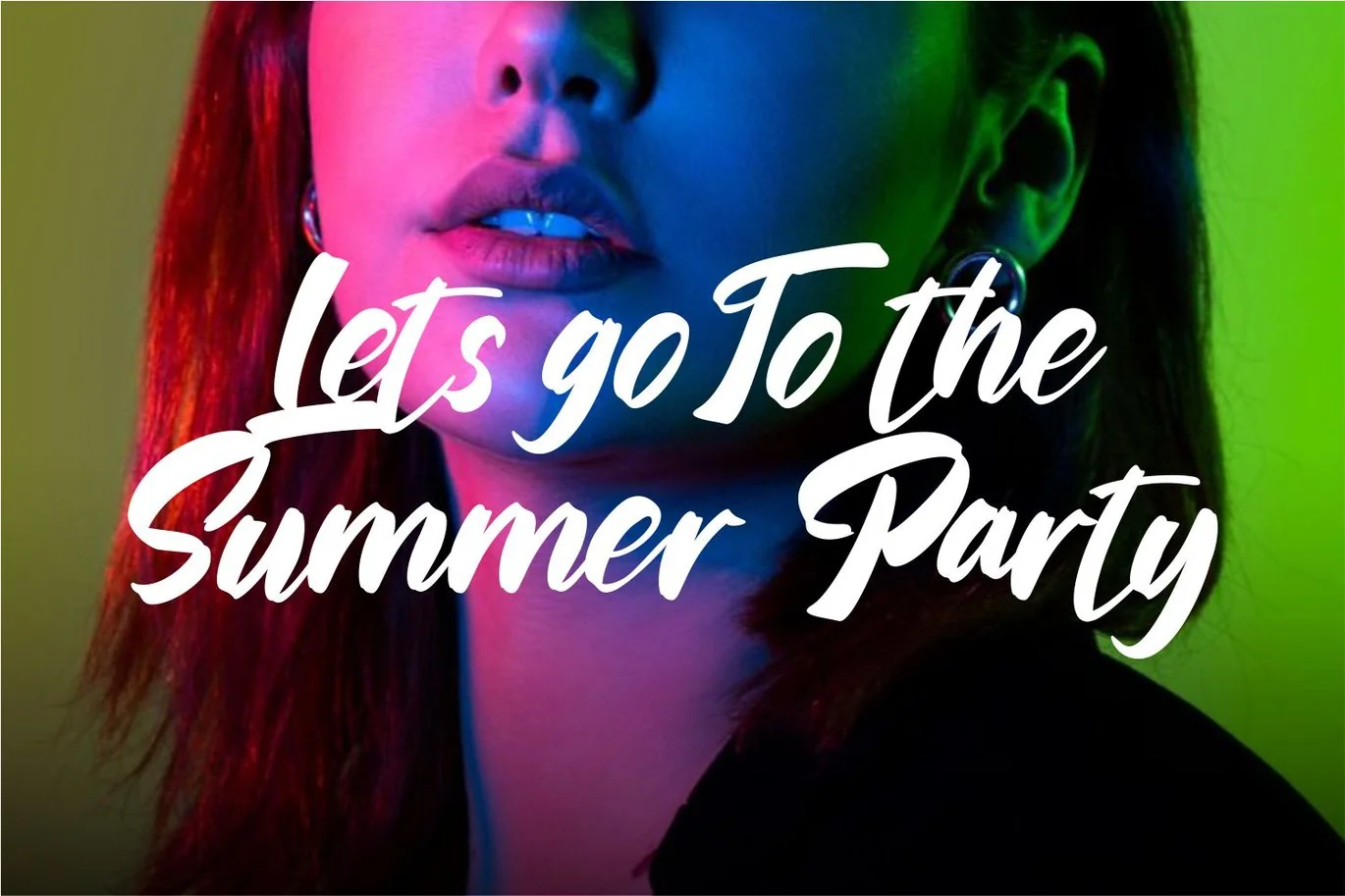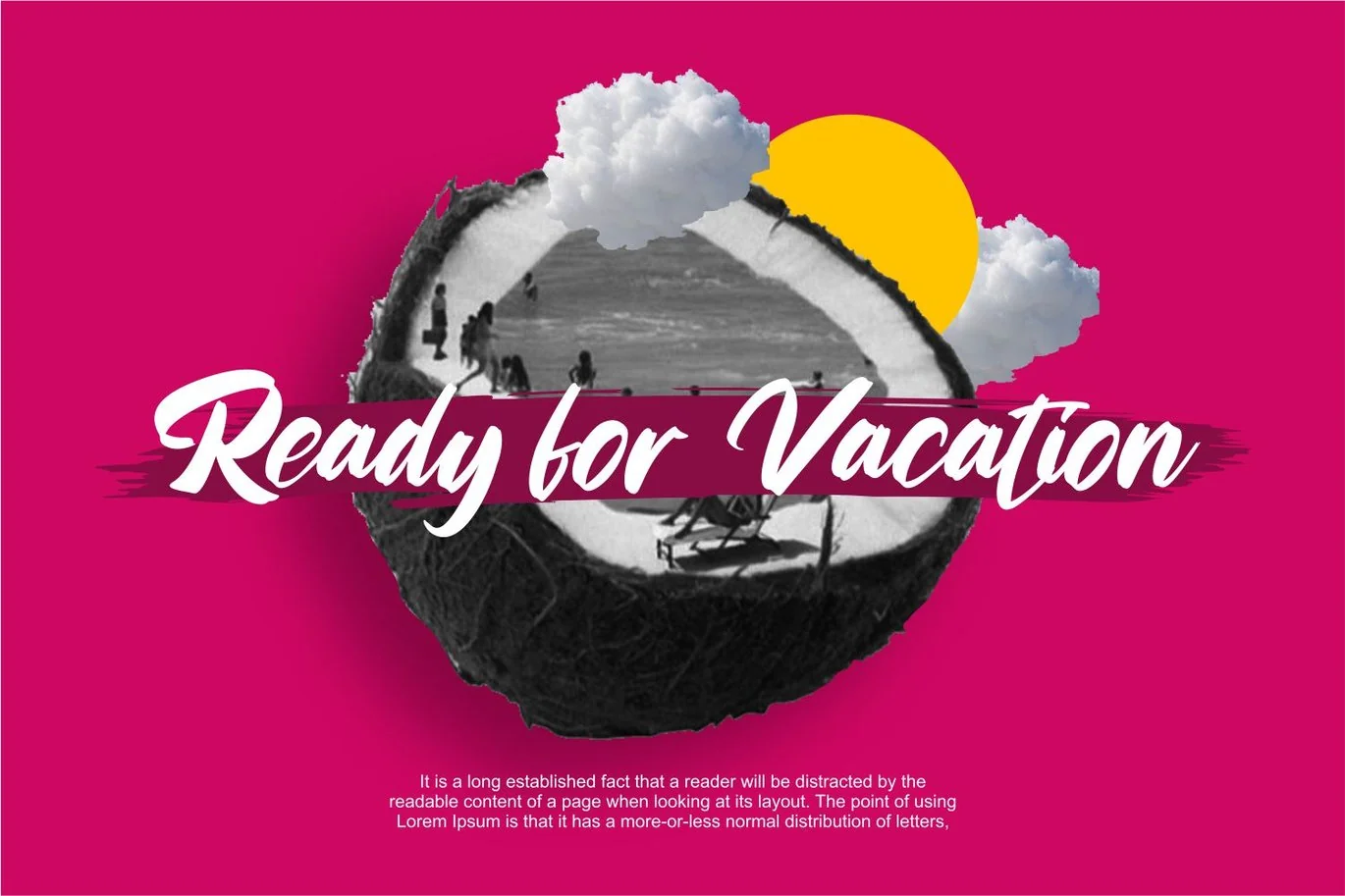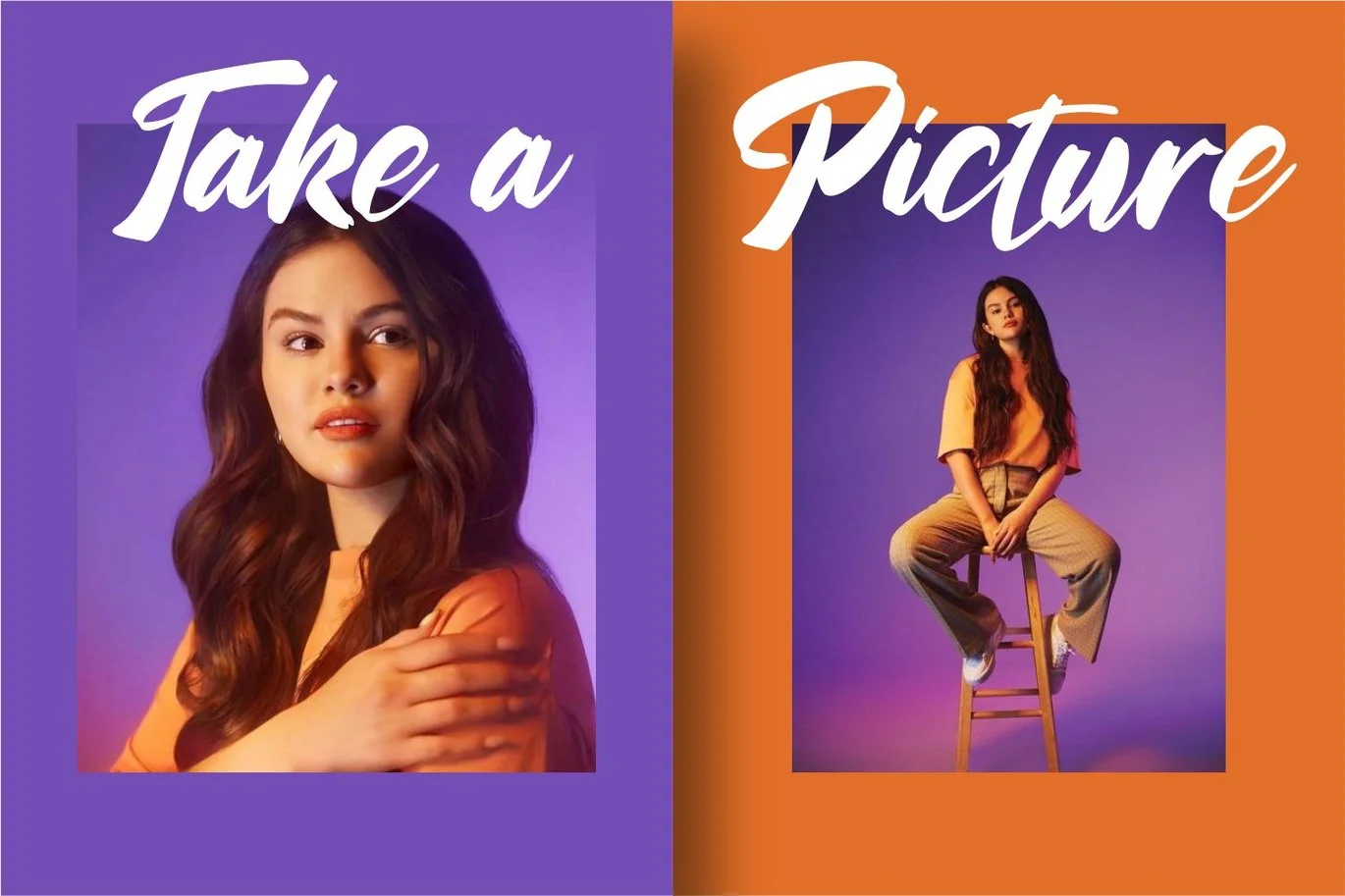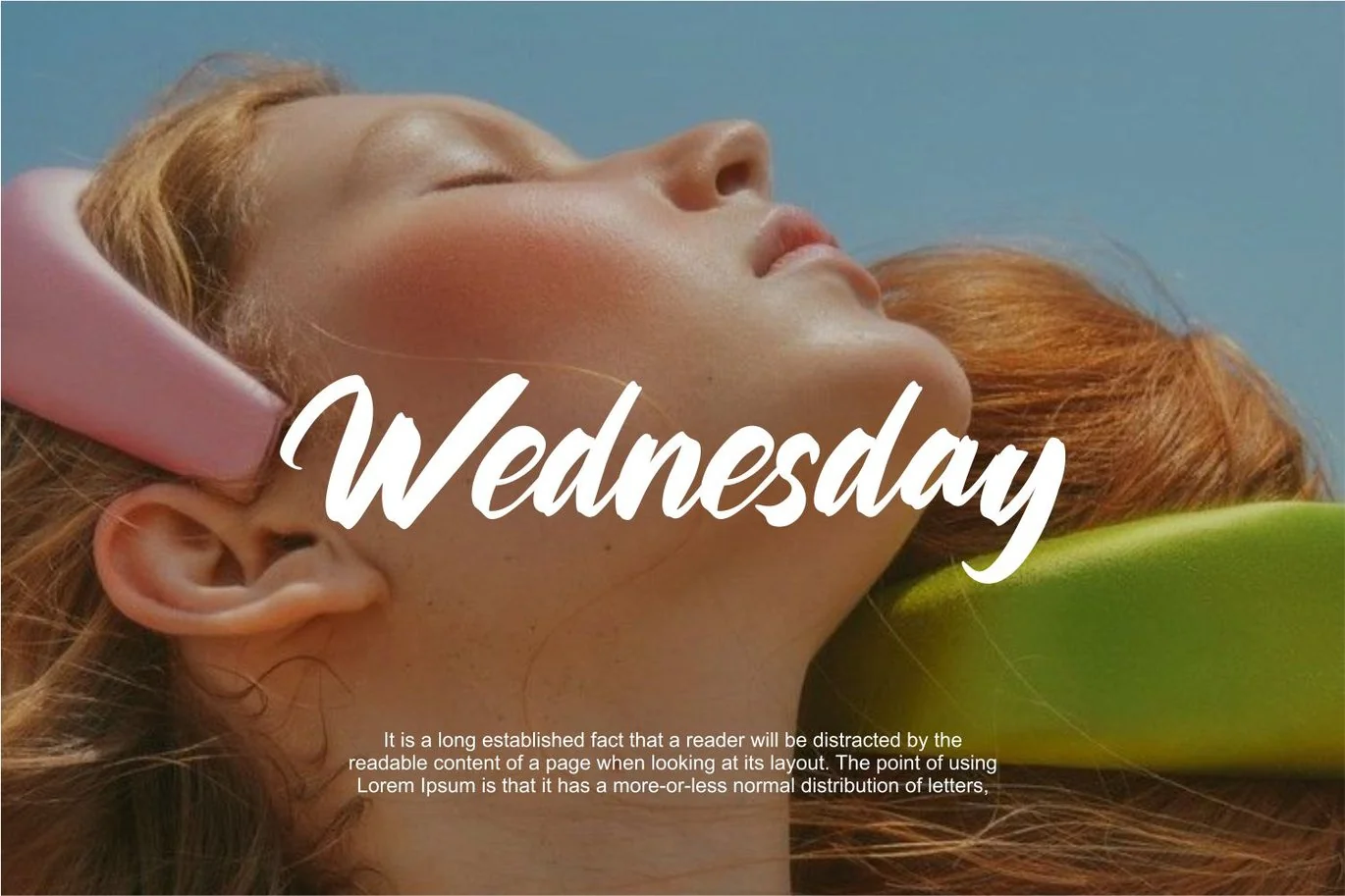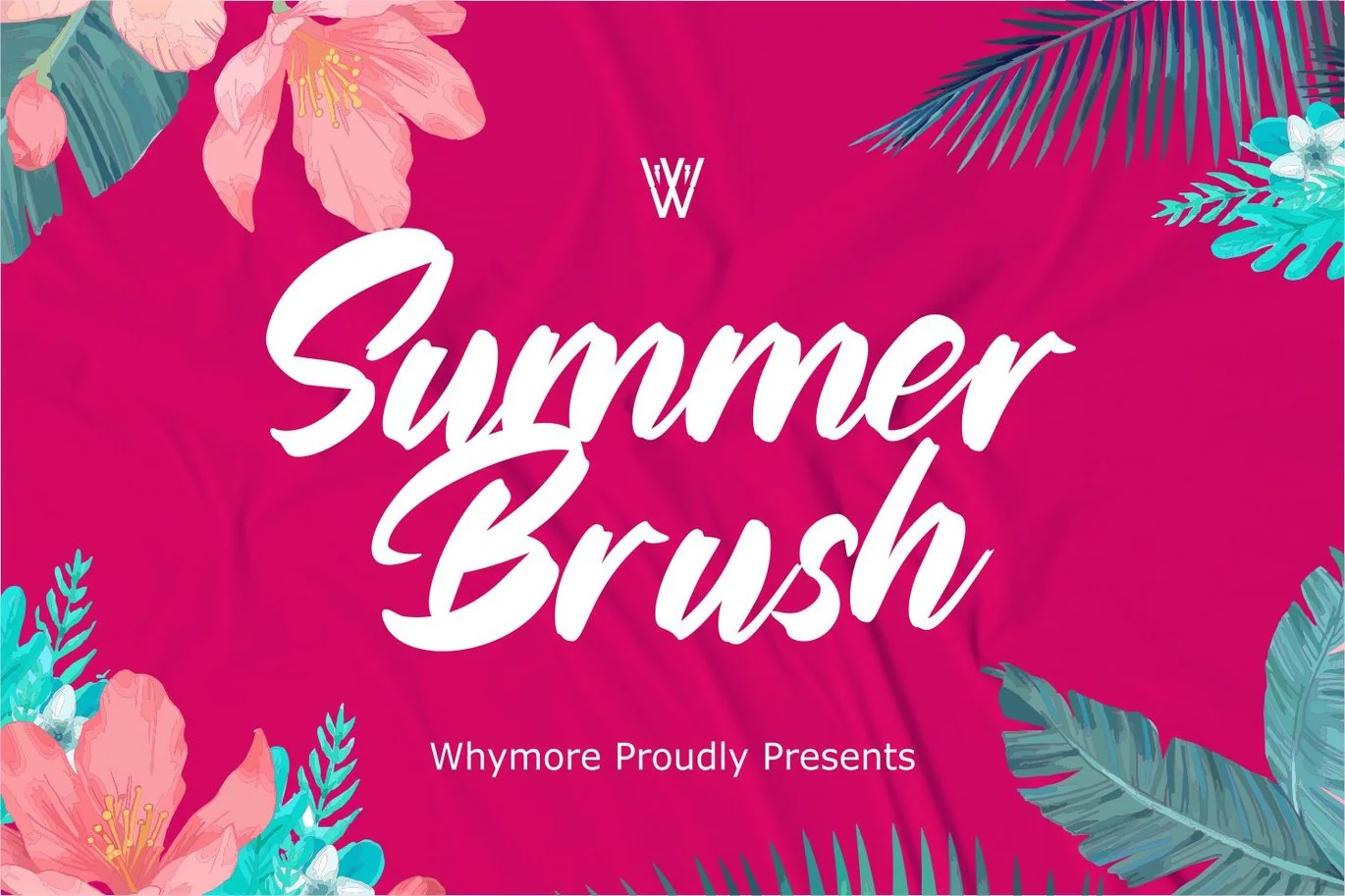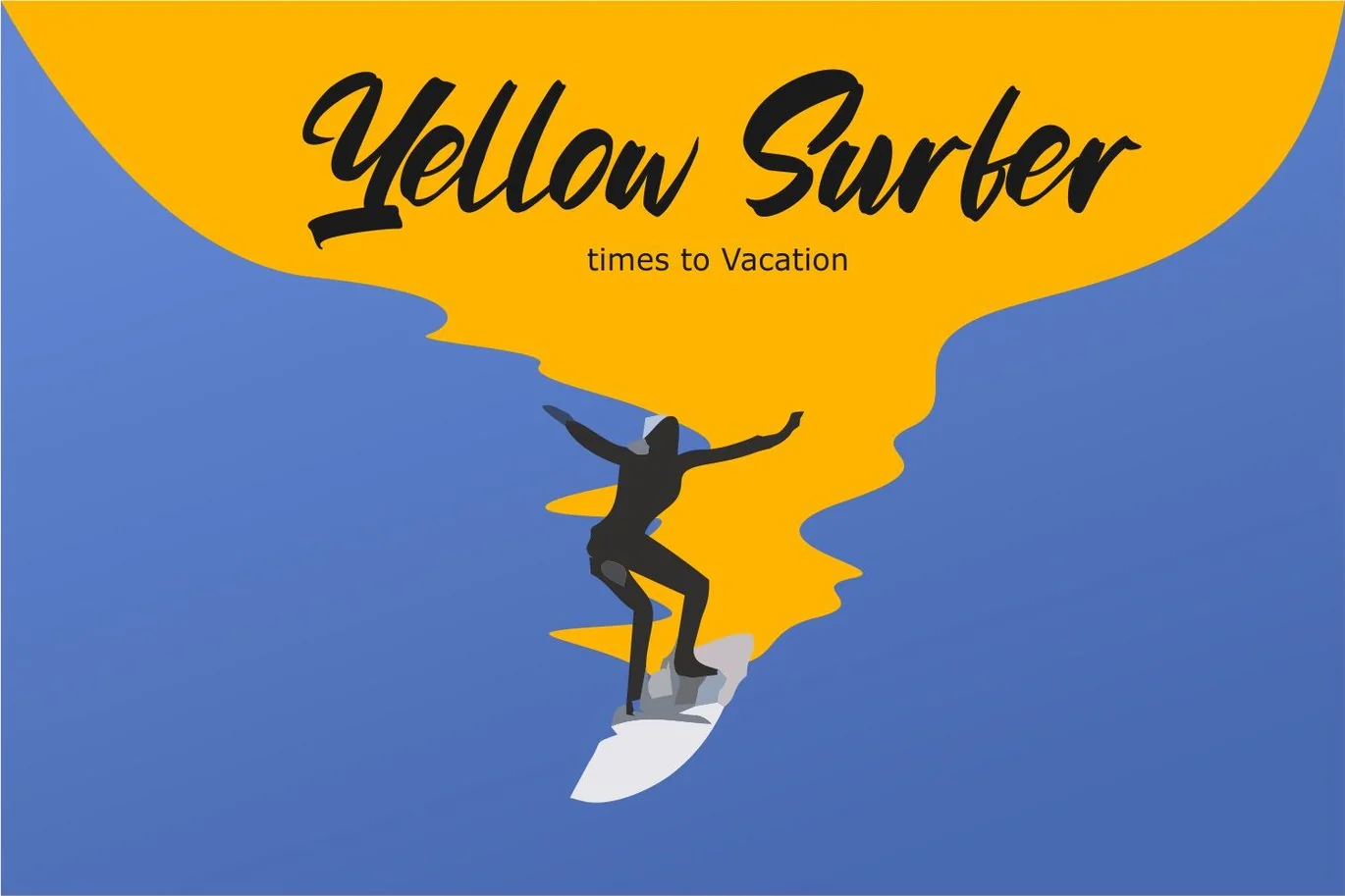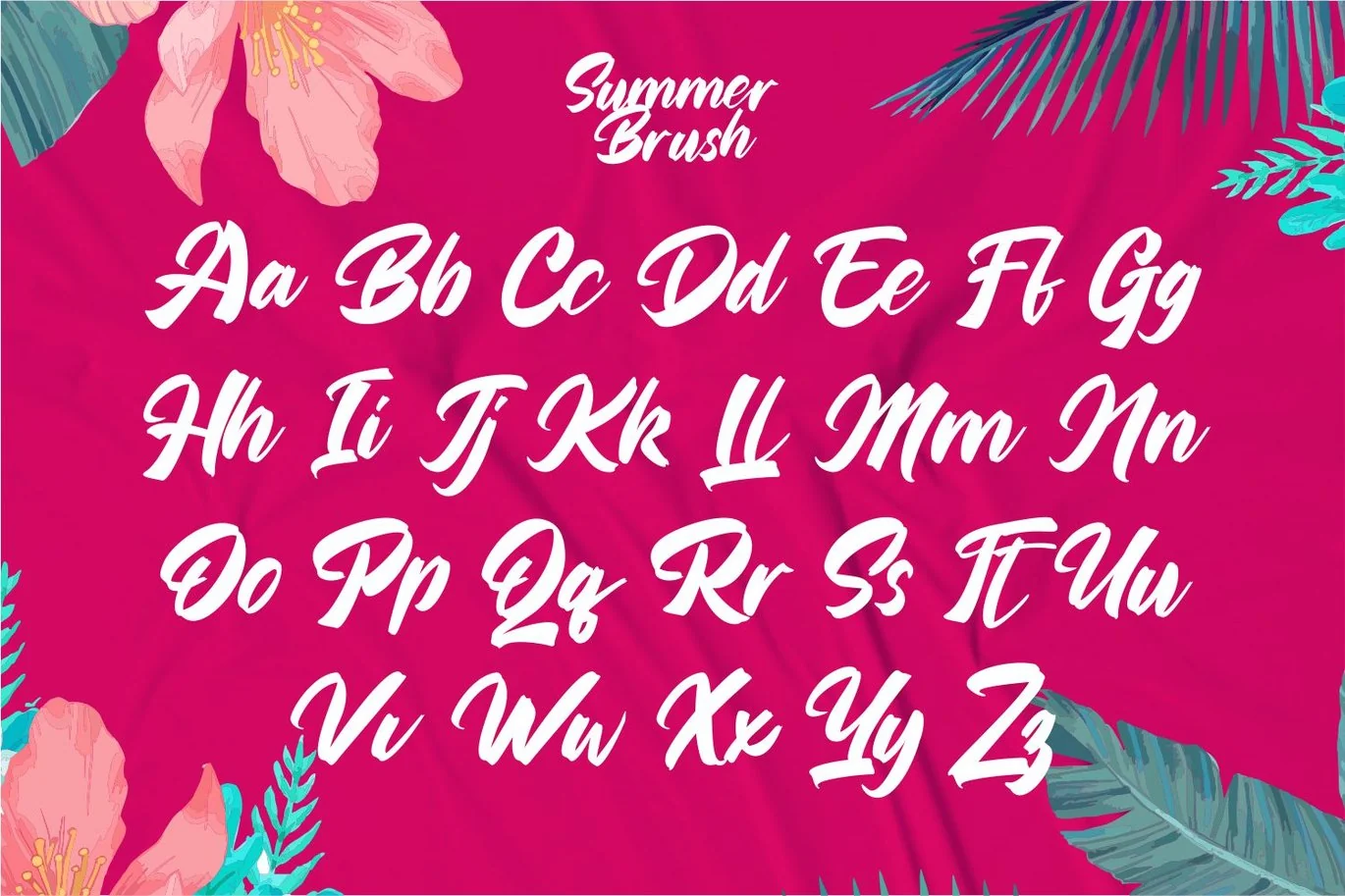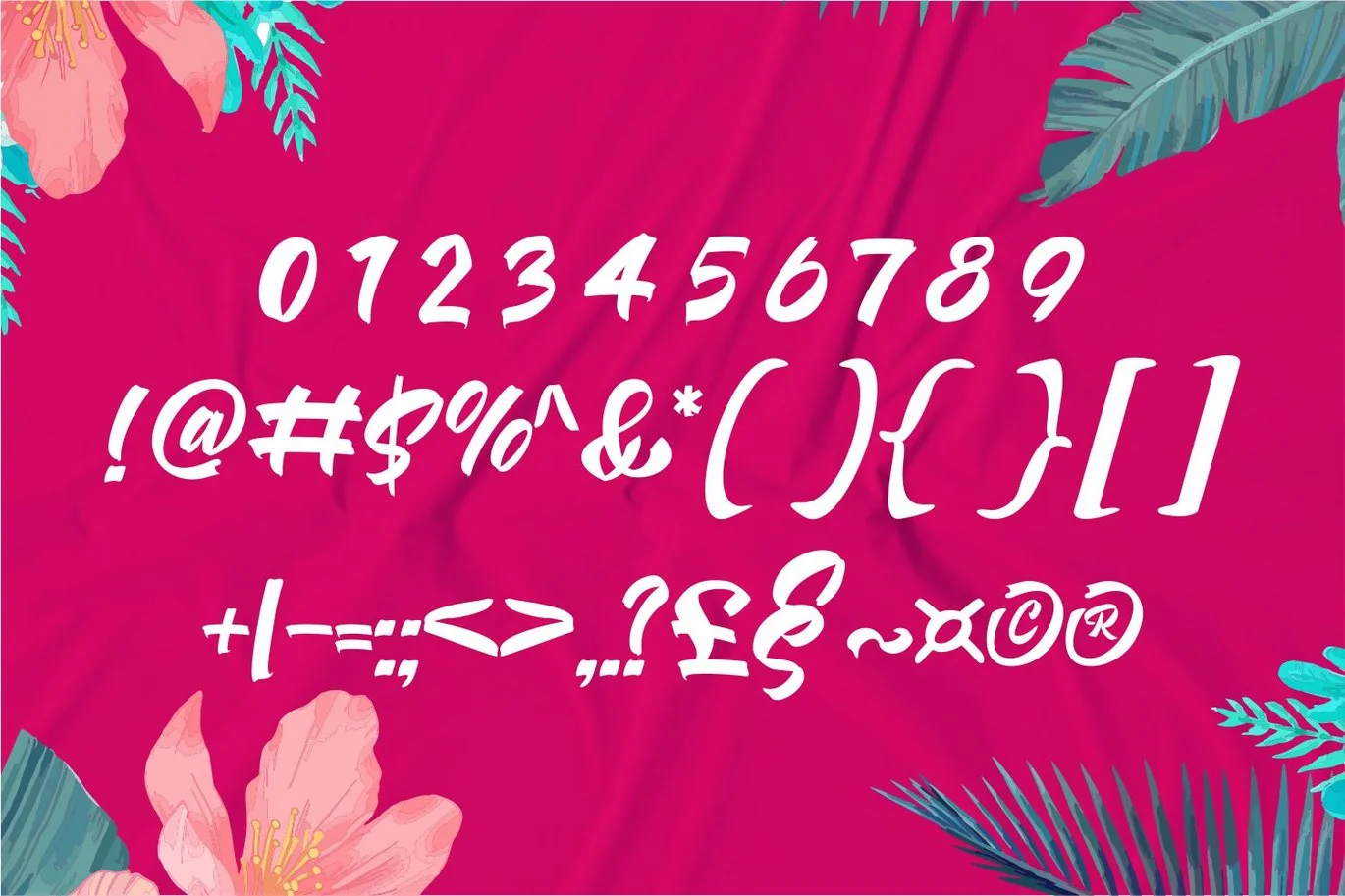
Summer Brush Script Fonts for Stunning Design
Summer Brush Script: Elevate Your Designs with Authentic Handwritten Style
Summer Brush Script Fonts are inspired by the charm and artistry of handwritten brush signs found in vibrant bars, quaint shops, and bustling markets. Designed to deliver a lively and authentic marker style, these fonts are perfect for designers seeking a unique and creative touch.
Key Features:
→ Authentic Design: Ideal for Artistic, Vintage, and Summer styles.
→ Wide Applications: Perfect for bar menus, shop signs, market displays, social media graphics, and any project that celebrates a handcrafted feel.
→ Creative Expression: Empowers designers to infuse their projects with an authentic, lively marker style without the repetitive patterns or dated look of traditional fonts.
Bring Your Designs to Life with Summer Brush Script
Summer Brush Script Fonts are the perfect choice for adding a distinctive and genuine touch to your projects. Whether you’re creating bar menus, shop signs, market displays, or social media graphics, these fonts will elevate your designs and make them stand out. Unleash your creativity and give your projects an authentic, handcrafted feel with Summer Brush Script.